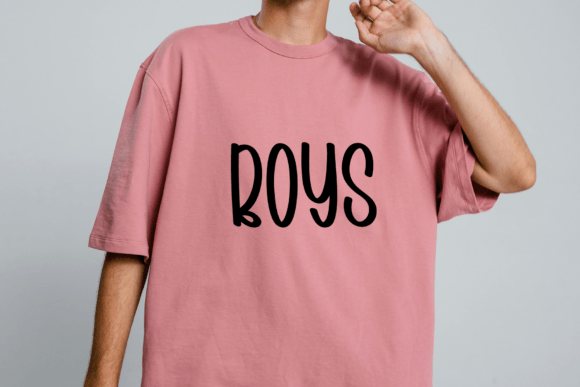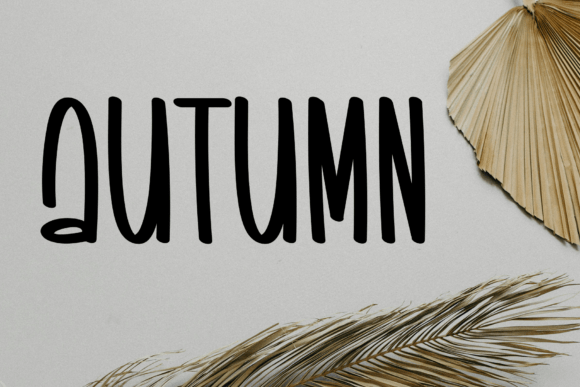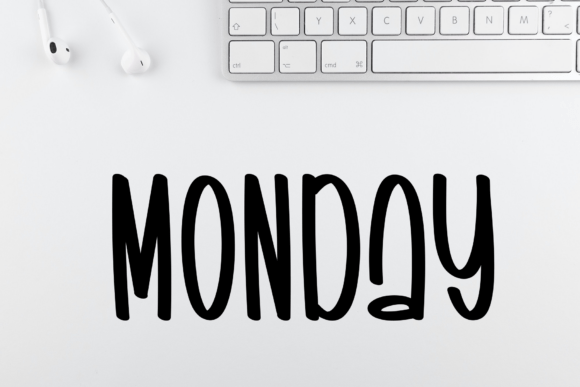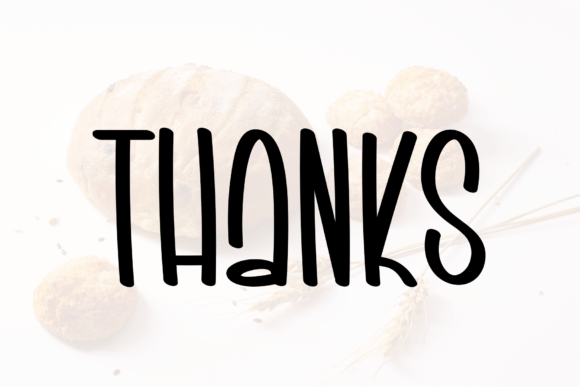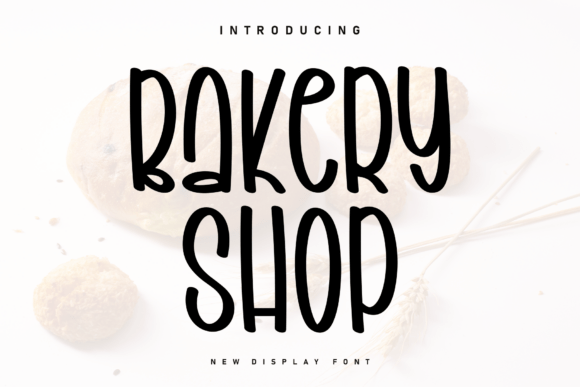
Bakery Shop Font: The Perfect Handwritten Style for Your Design Needs
Are you a designer or crafter looking for a unique and elegant font to elevate your brand or project? Look no further than the Bakery Shop font, a beautiful handwritten style that exudes a relaxed and sporty feel. In this article, we’ll explore the features and benefits of this versatile font, and show you how to make the most of it in your designs.
What is Bakery Shop Font?
Bakery Shop is a handwritten font that looks like it was drawn with a marker. Its casual, laid-back vibe makes it perfect for a wide range of design applications, from branding and logos to wedding supplies, greeting cards, and marketing promotions. The font’s relaxed and sporty feel also makes it ideal for fashion and lookbooks, adding a touch of elegance and sophistication to your designs.
Key Features of Bakery Shop Font
• Handwritten style: Bakery Shop font has a unique, hand-drawn look that sets it apart from more traditional fonts.
• Marker-like feel: The font’s marker-like texture gives it a fun and playful feel, perfect for designs that need a personal touch.
• Relaxed and sporty: The font’s casual vibe makes it perfect for designs that need to convey a sense of ease and approachability.
• Luxurious and elegant: Despite its casual feel, Bakery Shop font still manages to convey a sense of luxury and sophistication, making it perfect for high-end designs.
Uses for Bakery Shop Font
Bakery Shop font is incredibly versatile, and can be used in a wide range of design applications, including:
• Branding and logos: The font’s unique style makes it perfect for creating memorable and distinctive brand identities.
• Wedding supplies: Bakery Shop font is ideal for wedding invitations, programs, and other stationery, adding a touch of elegance and romance to your designs.
• Greeting cards: The font’s playful feel makes it perfect for greeting cards and other celebratory designs.
• Fashion and lookbooks: Bakery Shop font is ideal for fashion designs, adding a touch of sophistication and glamour to your lookbooks and marketing materials.
• Marketing promotions: The font’s luxurious feel makes it perfect for marketing promotions, such as brochures, flyers, and posters.
Tips for Using Bakery Shop Font
To get the most out of Bakery Shop font, here are a few tips to keep in mind:
• Use it sparingly: While Bakery Shop font is beautiful, it can be overwhelming if used too much. Use it sparingly to add emphasis and create visual interest.
• Pair it with contrasting fonts: Pair Bakery Shop font with contrasting fonts to create visual interest and add depth to your designs.
• Experiment with colors: The font’s marker-like texture looks great in a range of colors, so don’t be afraid to experiment and find the perfect hue for your design.
Bakery Shop font is a unique and versatile handwritten style that is perfect for designers and crafters looking to add a touch of elegance and sophistication to their designs. With its relaxed and sporty feel, luxurious texture, and wide range of uses, this font is sure to become a favorite in your design arsenal. So why not give it a try and see how it can elevate your designs?